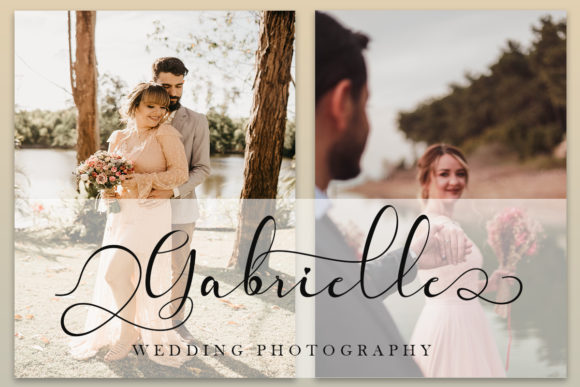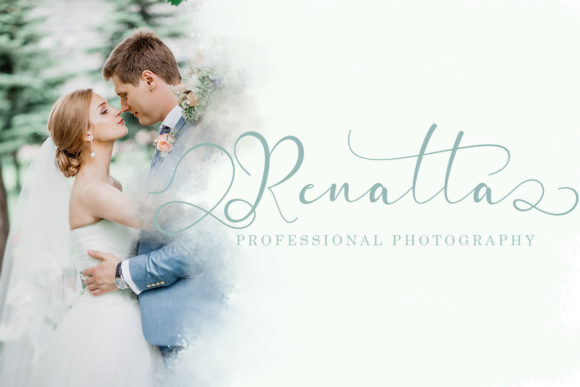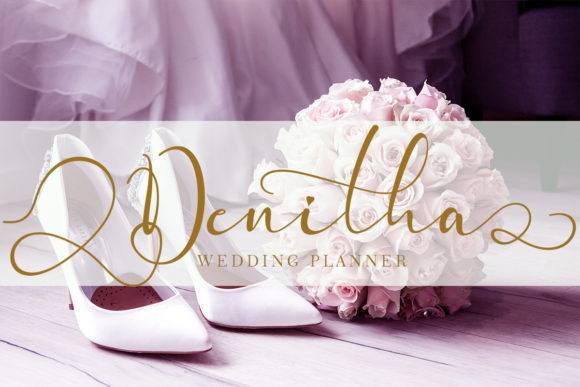
Introduction to Madelline Font
Have you ever been working on a creative project, pouring your heart and soul into it, and then suddenly, you stumble upon the perfect font that brings everything together? That’s exactly what happened to many designers who discovered the Madelline Font. This elegant, handwritten font has been a game-changer for those looking to add a touch of sophistication to their designs.
With its beautiful and well-balanced characters, the Madelline Font is a versatile design resource that can be used in a wide range of creative projects, from wedding invitations to advertising campaigns. Whether you’re a professional designer or a hobbyist, this high-quality font is sure to elevate your work and make it stand out from the crowd.
Key Features of Madelline Font
- Madelline Font features a transparent background, allowing for seamless integration with various design elements.
- Unique, elegant design makes Madelline Font an ideal choice for creative projects requiring a touch of sophistication.
Honest Review: Madelline Font
I recently came across the Madelline Font, and I must say it’s a great addition to any design resource collection. The free download made it easily accessible, allowing me to experiment with it in my creative project.
The Madelline Font is known for its high quality, and it definitely delivers. The clean and elegant design makes it perfect for a variety of applications, from headings to body text.
Here are some of the things that work well with the Madelline Font:
- ✨ Versatility: It can be used in both print and digital media.
- ✨ High quality: The font is well-crafted and looks great at various font sizes.
- ✨ Transparent background: This makes it easy to use on top of other design elements.
- ⚠️ Limited character set: The font may not have all the characters you need for your project.
- ⚠️ Not suitable for small text: The font may be difficult to read at very small font sizes.
Overall, I’m impressed with the Madelline Font. Its high quality and versatility make it a great choice for any design project. While it may have some limitations, it’s definitely worth considering for your next creative project.
The Madelline Font is suitable for various creative projects, including logo designs, branding materials, and marketing materials. It’s also a great choice for creating social media graphics, presentations, and documents. With its high-quality design and transparent background, the Madelline Font is a versatile design resource that can be used in a variety of contexts.